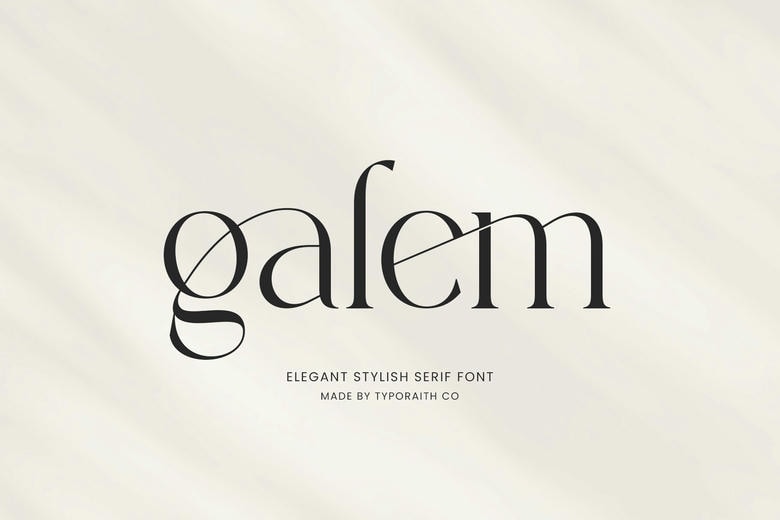
Galem Font
Galem is a contemporary serif typeface designed with a taste of luxury and exquisite design. All curves and details are created to give a luxurious, high end, and professional appearance, perfect in high branding, editorial designs, logos, wedding invitations, and other creative projects.
Galem gives any design a classical modern quality, with its clean lines and powerful serif system. It also contains gorgeous ligatures and alternates which make your typing look more artistic and exclusive.
Galem Serif Font